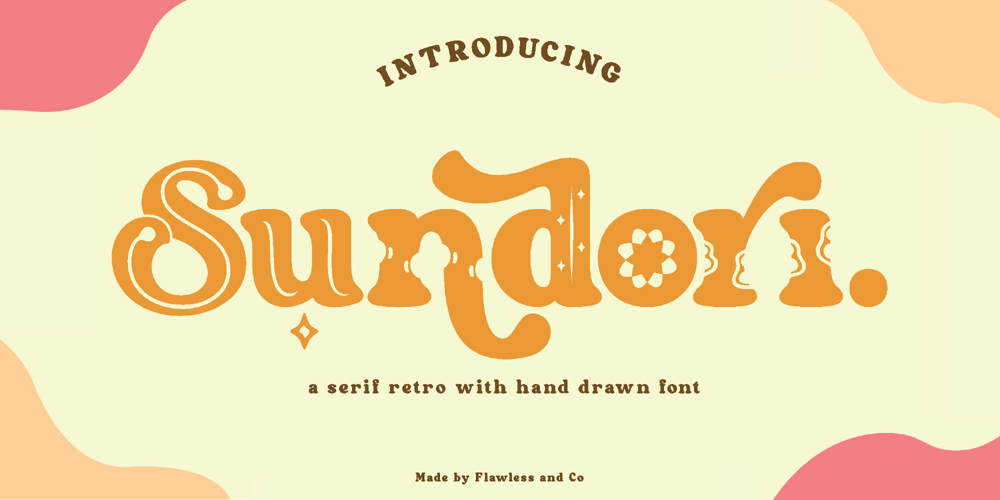
Sundori
Sundori font
Sundori Font Family was designed by Achmad Yani and published by Flawlessandco. Sundori contains 2 styles and family package options. Introducing “Sundori” – A Serif Retro Font with Hand-Drawn Charm. Embark on a journey through time and artistic expression with “Sundori,” a serif retro font that marries the elegance of bygone eras with the warmth of hand-drawn authenticity. This font has of two distinctive styles – Regular and Fun — adorned with patterns in fun styles that add an extra layer of delight to your designs. This serif typeface is more than letters on a page; it’s a journey into a world where every curve and line tells a story of both nostalgia and innovation.There’s some connected letters and some alternates that suitable for any graphic designs such as branding materials, t-shirt, print, business cards, logo, poster, t-shirt, photography, quotes .etcThis font support for some multilingual. Also contains uppercase A-Z and lowercase a-z, alternate character, numbers 0-9, and some punctuation.If you need help, just write me! Thanks so much for checking out my shop!